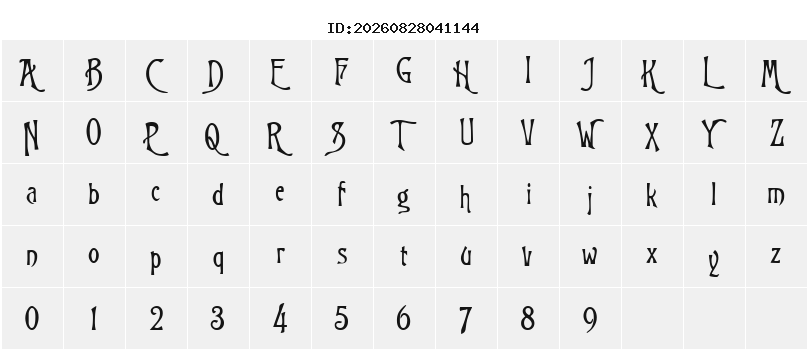
• Font Name: Trinigan FG
• Designer: unknown
• Manufacturer: Fontgrube AH
• Description: An Art Nouveau typeface well-known via advertising and the silver screen. This font goes by quite a number of names: "Goodfellow", "PS Bluegum Forest", "Burton's Nightmare". P22 sells this face as "Victorian Swash" saying it was inspired by a historical face called "...'Columbian', which has also been known in recent years as 'Glorietta'..." (P22.com). This "Glorietta" is in the "Solotype Catalogues", a collection of old typefaces by Dan X. Solo, published by Dover. (See his bio on myfonts.com.) Probably that printed sample was directly or indirectly the mother of all these typefaces. Trinigan has an extended western and Turkish charset and 108 Kern pairs. Germandbls, Euro symbol and a few other characters were created new. First published in 2002. Revised and amplified in 2013 as version 1.10.